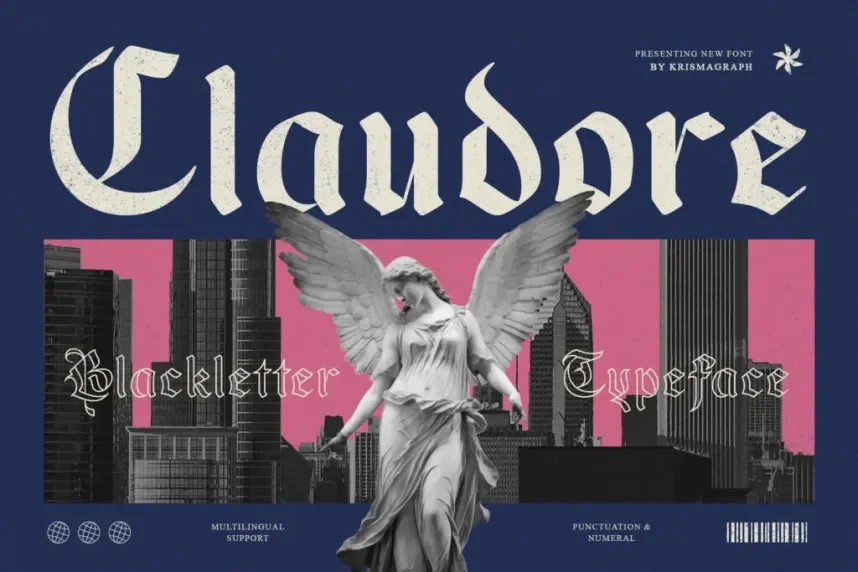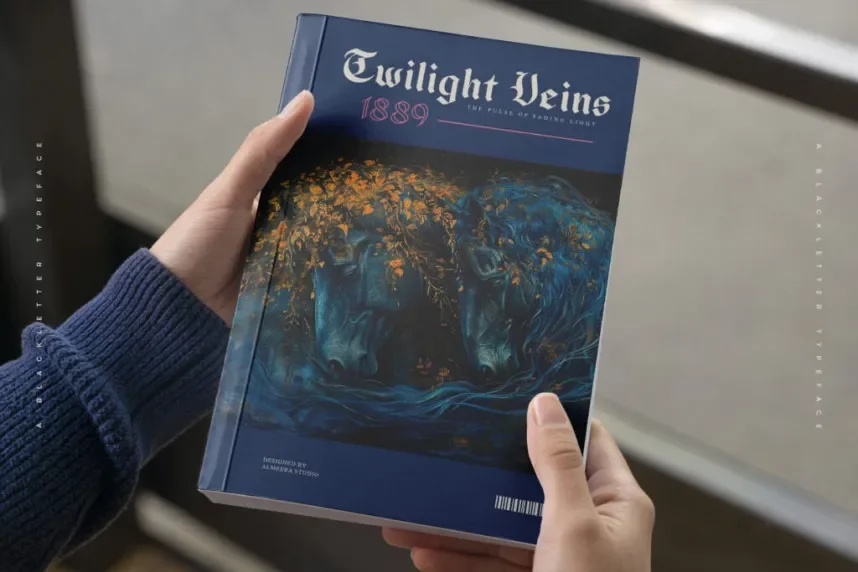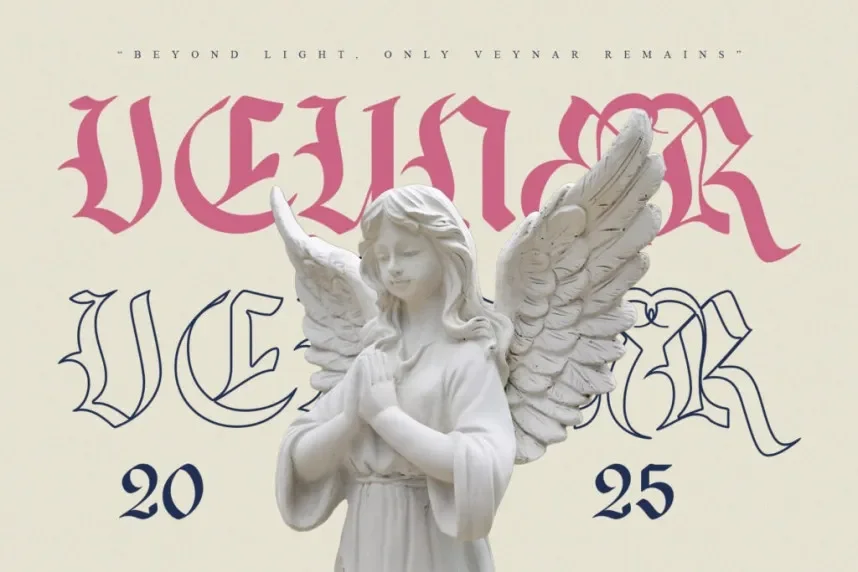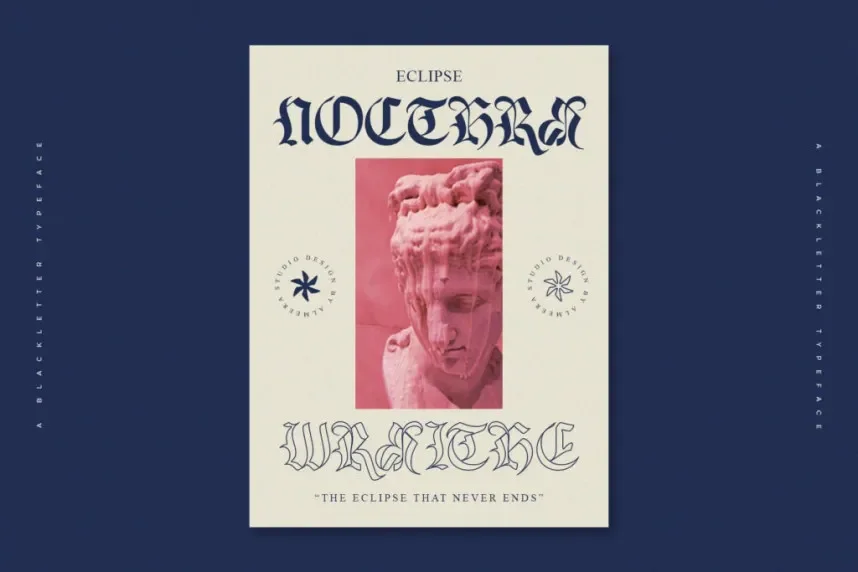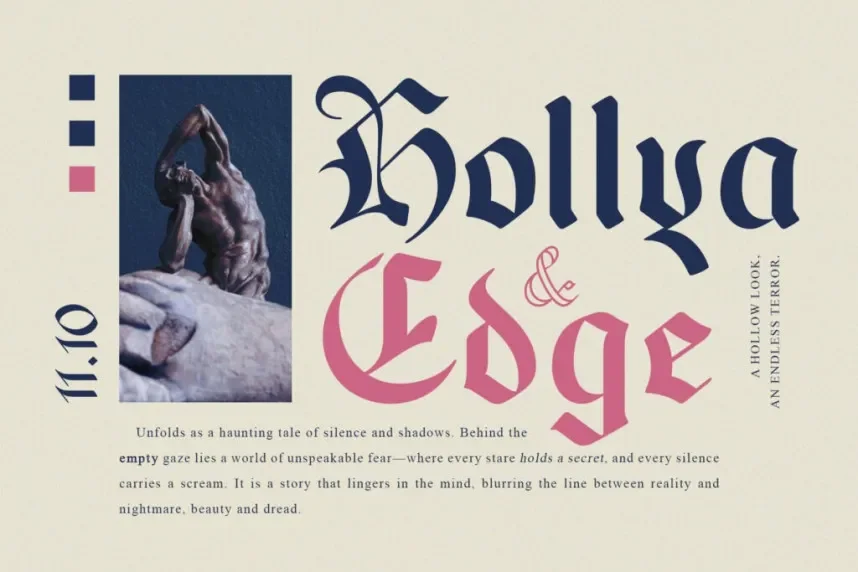
Claudore Blackletter Typeface is a traditional blackletter font that evokes the medieval script style with sharp, angular strokes and intricate detailing. It is perfect for projects that require a vintage or historical touch, such as book covers, event invitations, and certificates.
Best used for vintage branding, wedding invitations, and formal designs, Claudore Blackletter Font pairs well with modern sans-serif fonts to ensure readability. Available in TTF and OTF formats, it includes a commercial-use license. Always review the license before using it commercially.